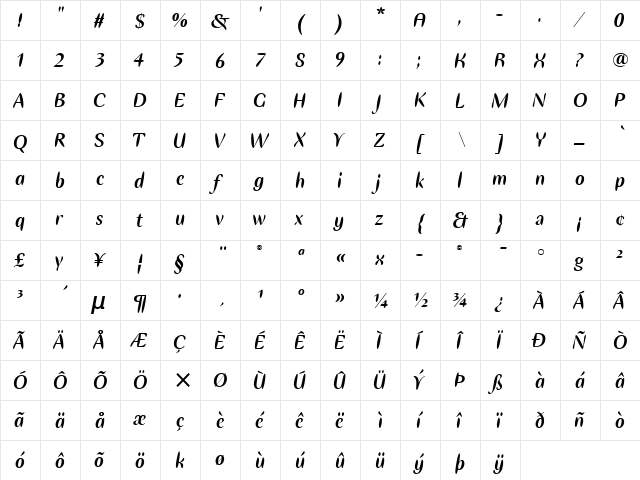
Ellipse ITC Bold Italic
Design Context for Ellipse ITC Typeface
Ellipse ITC is a composed and adaptable typeface that performs quietly and consistently across a wide range of design contexts. The dynamic lean of this cut emphasises speed and emphasis in any layout. Its bold stroke weight gives it real presence on the page.
Pro Tip: Try Ellipse ITC for annotation and caption copy alongside an upright companion — the contrast in angle creates a dynamic but ordered typographic system.